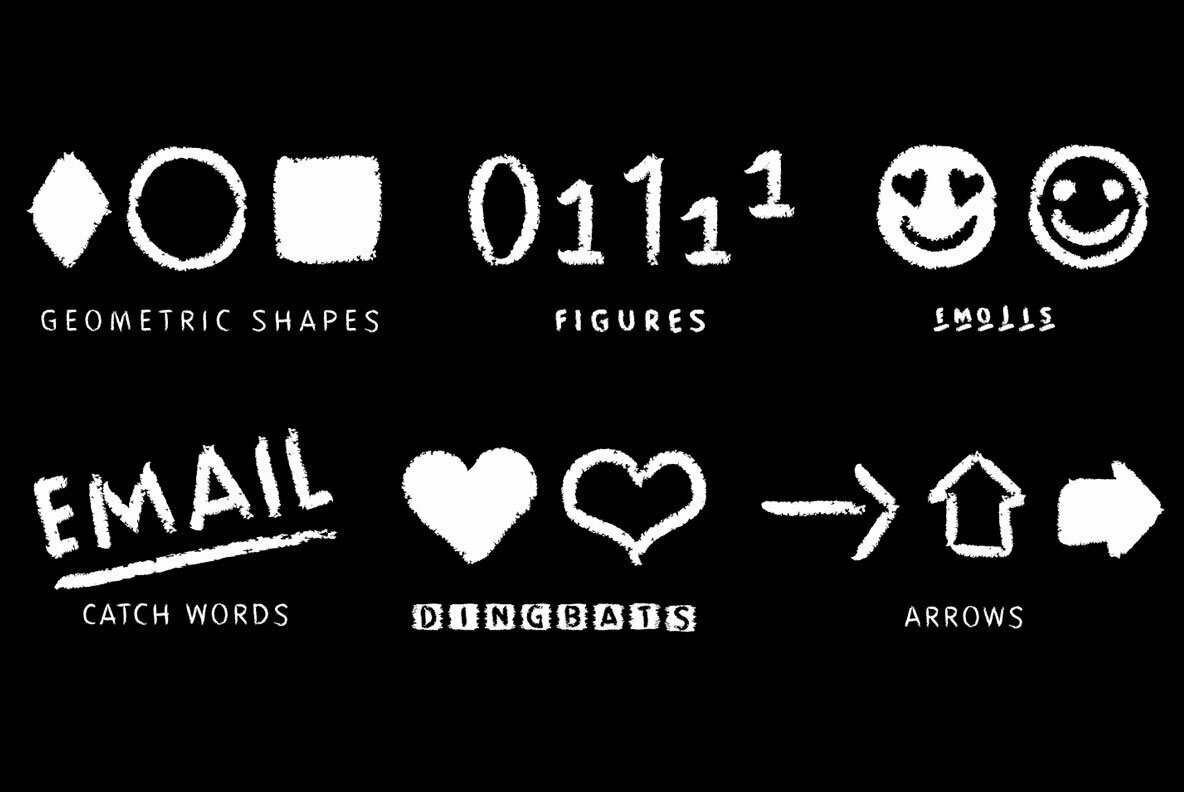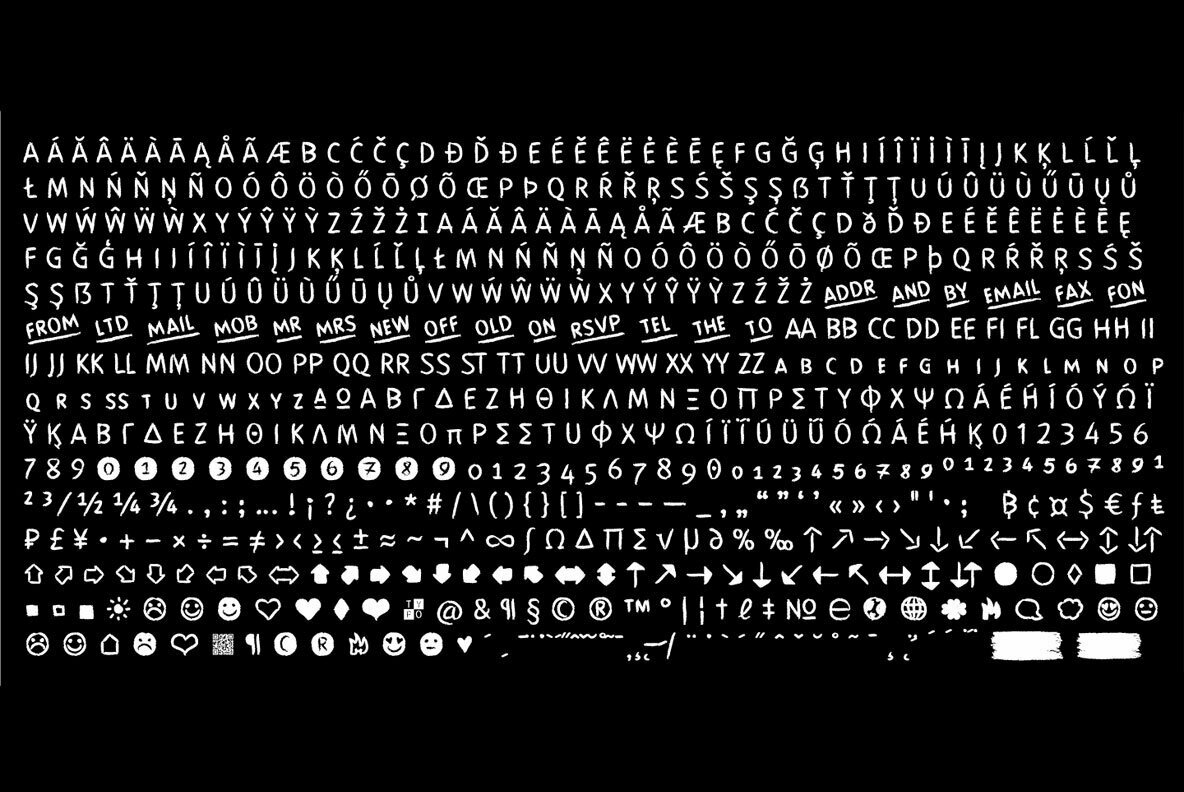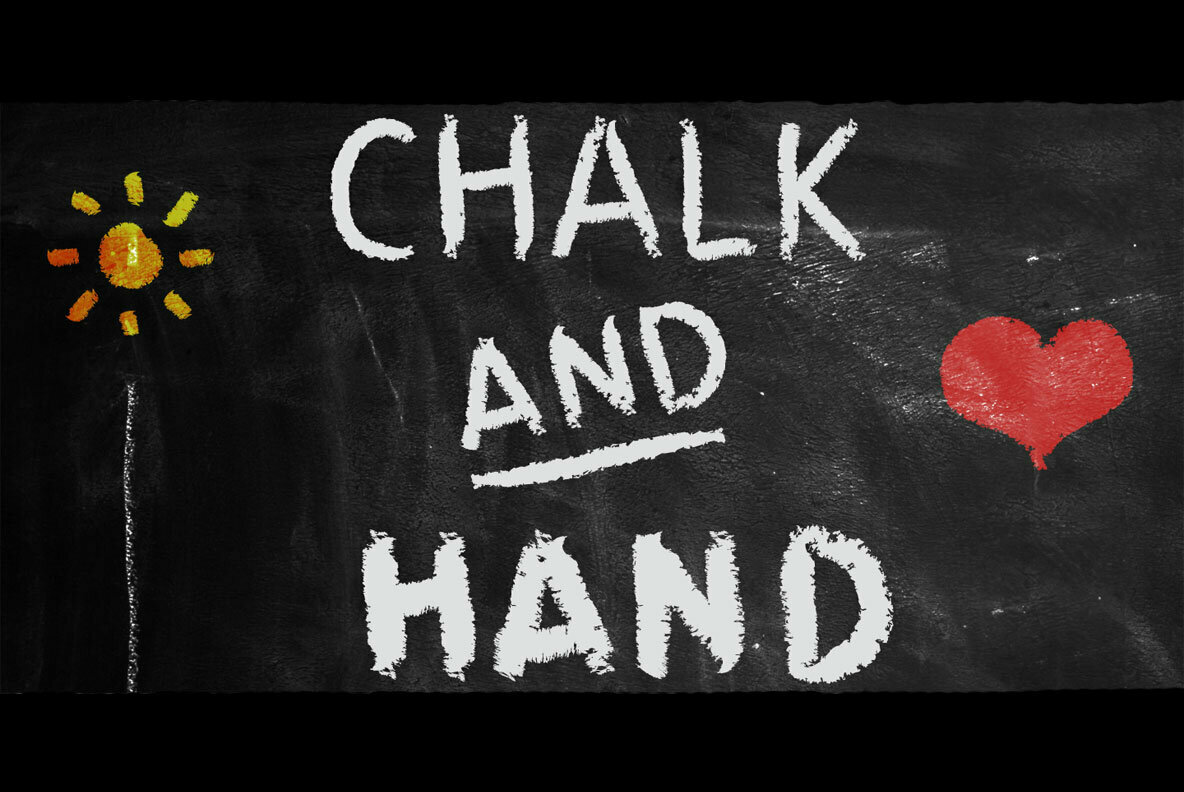
Chalk Hand Marker Font
The typeface Chalk Hand Marker is designed from 2019 for the font foundry Typo Graphic Design by Manuel Viergutz. The rough sans-serif display typeface with 4 font styles (Reg, Bold, Caps, Invert) is inspired by handwriting.
634 glyphs incl. 150+ decorative extras like icons, arrows, dingbats, emojis, symbols, geometric shapes, catchwords, decorative ligatures (type the word #LOVE for or #SMILE for as OpenType-Feature dlig) and stylistic alternates (2 stylistic sets). For use in logos, magazines, posters, advertisement plus as webfont for decorative headlines. The font works best for display size.
■ Font Name: Chalk Hand Marker
■ Font Weights: Reg, Bold, Caps, Invert + DEMO (with reduced glyph-set)
■ Font Category: Display for headline size
■ Glyph Set: 634 glyphs
■ Specials: Alternative letters, stylistic sets, automatic contextual alternates via OpenType Feature. Dingbats & Symbols, arrows, hearts, emojis/smileys, stars, further numbers, lines & geometric shapes
■ Design Date: 2019
■ Type Designer: Manuel Viergutz